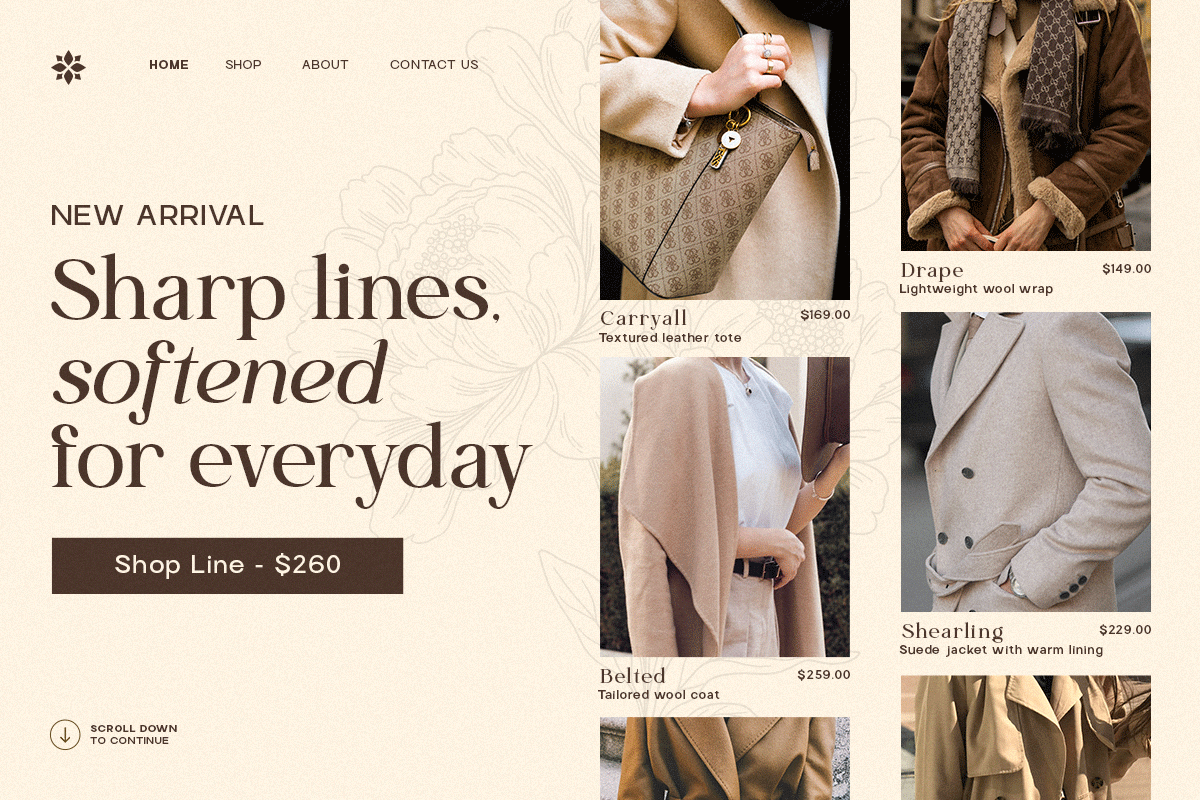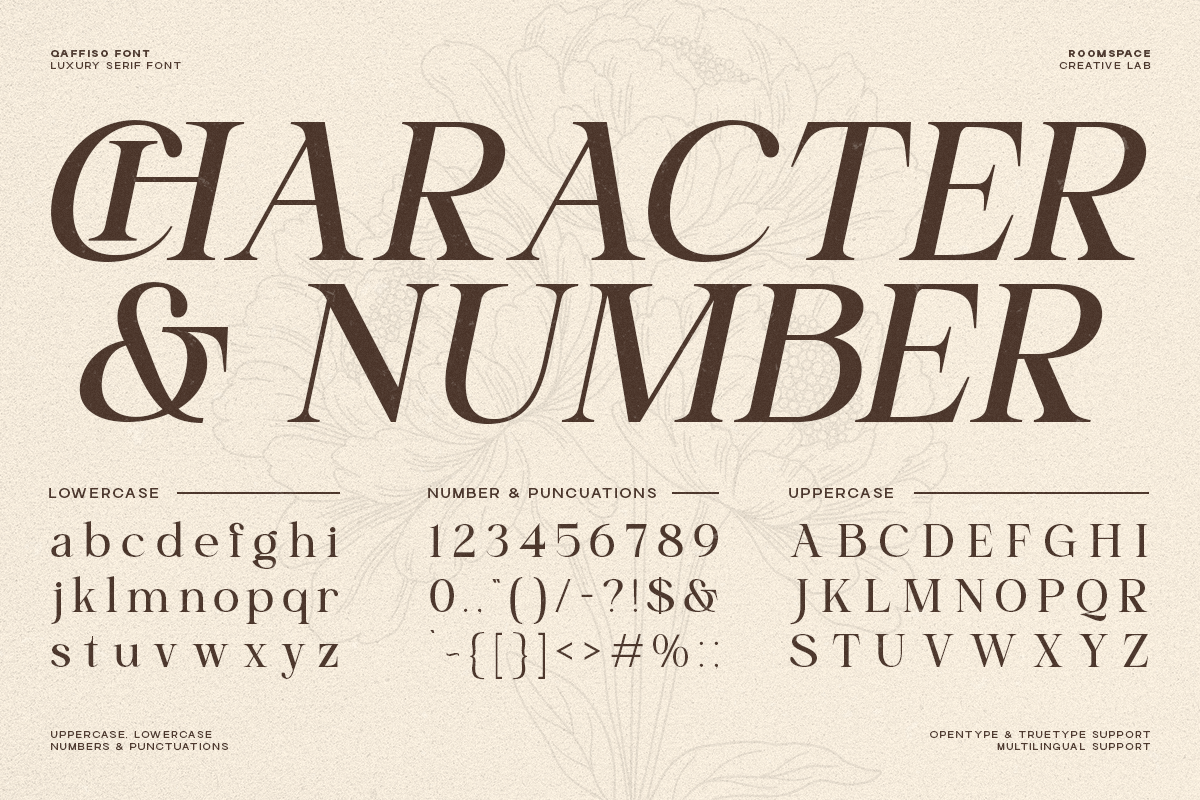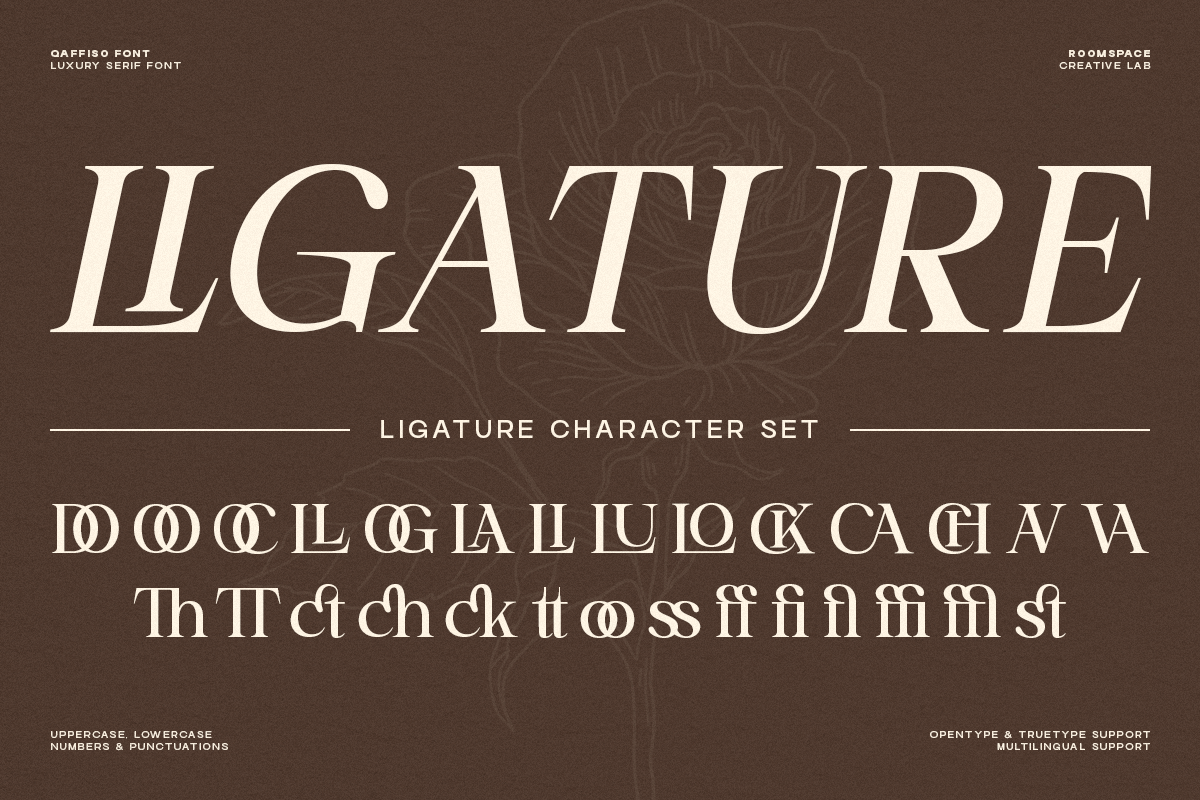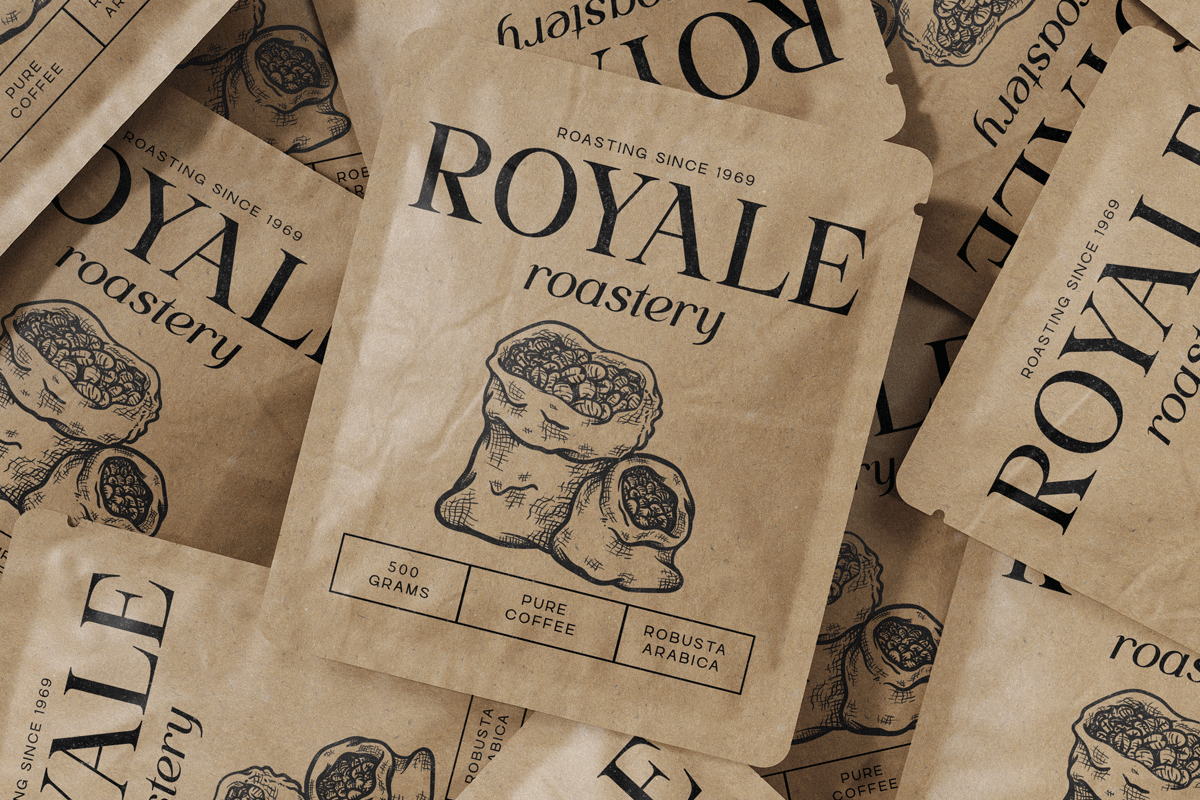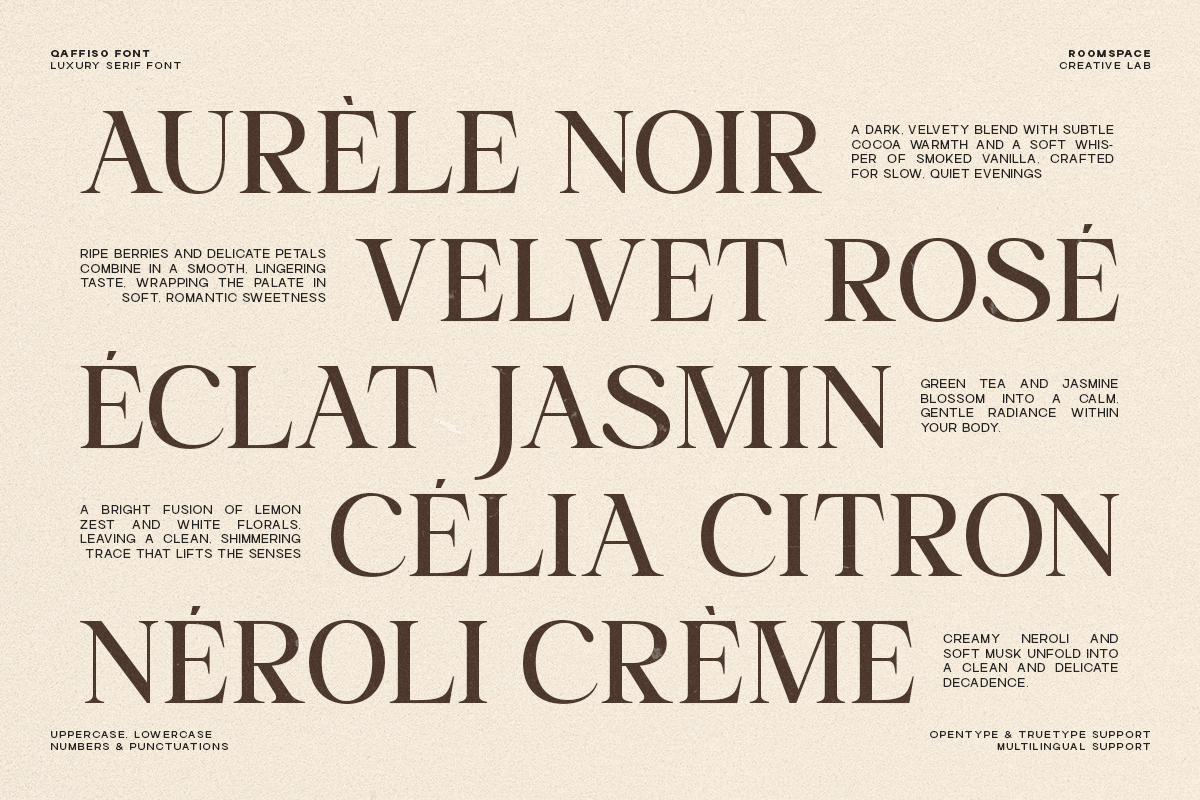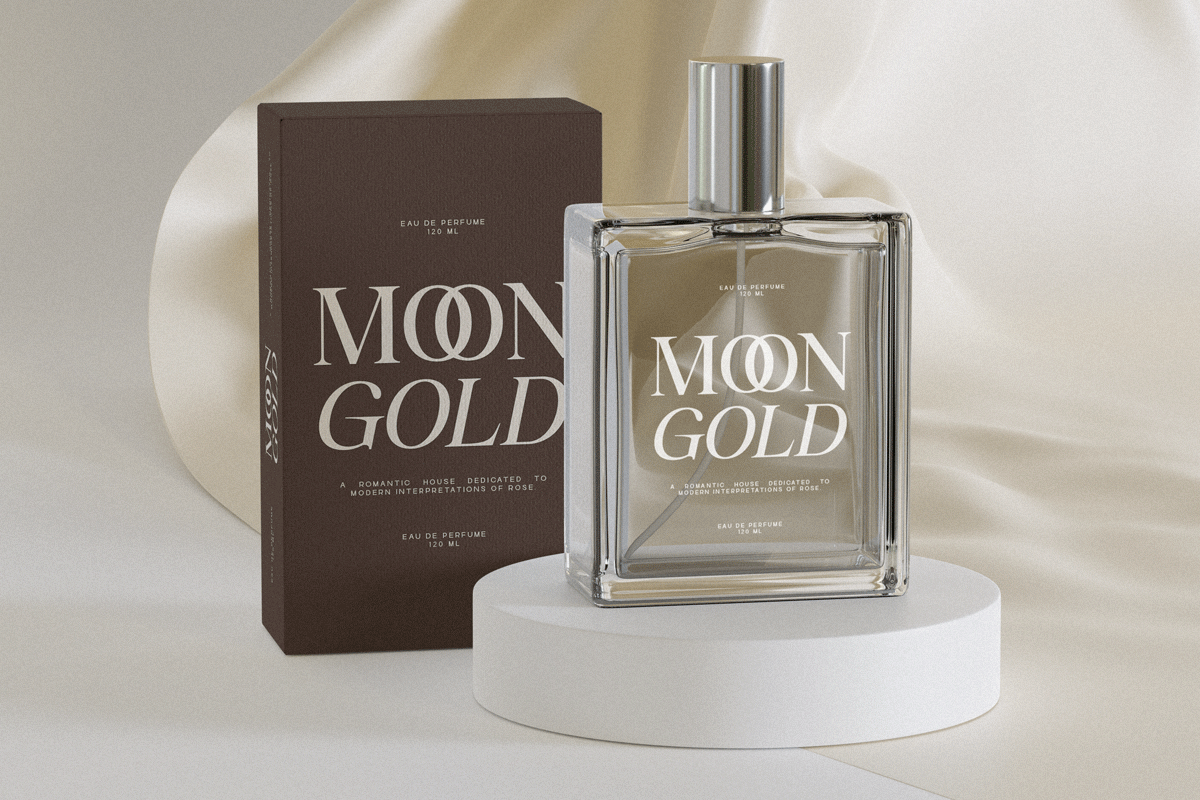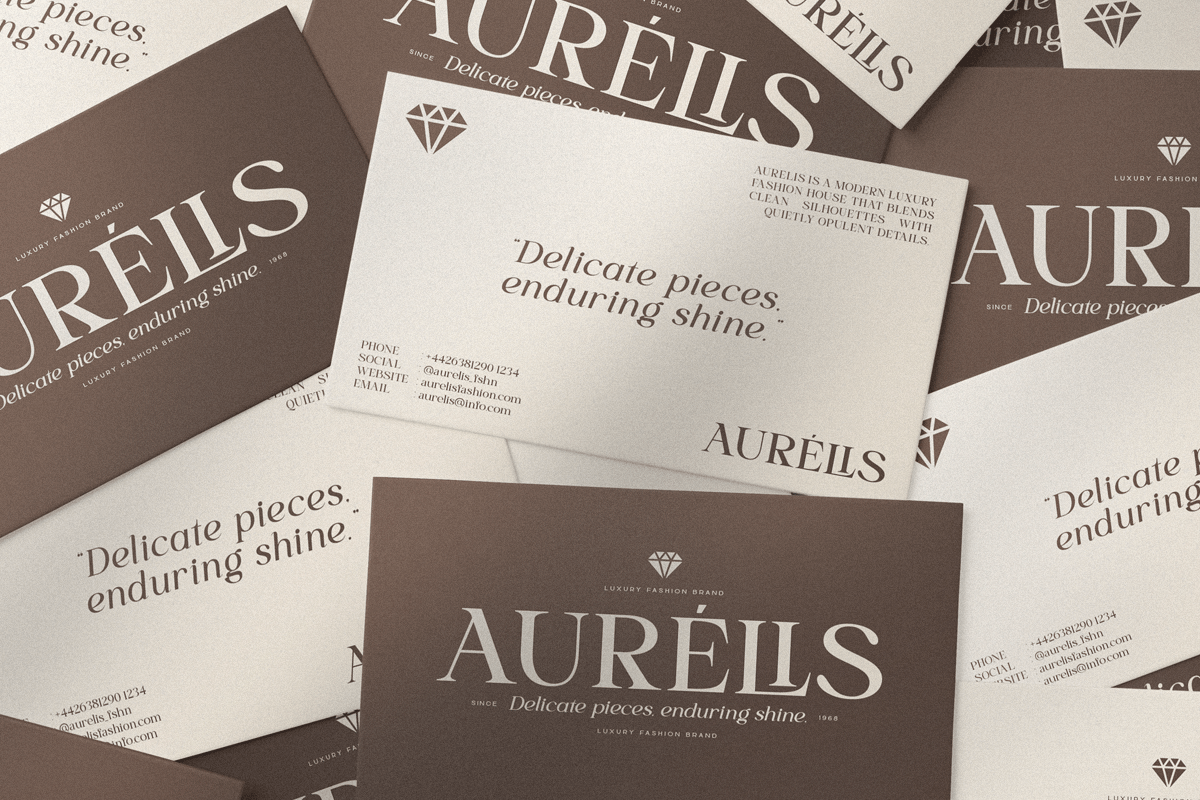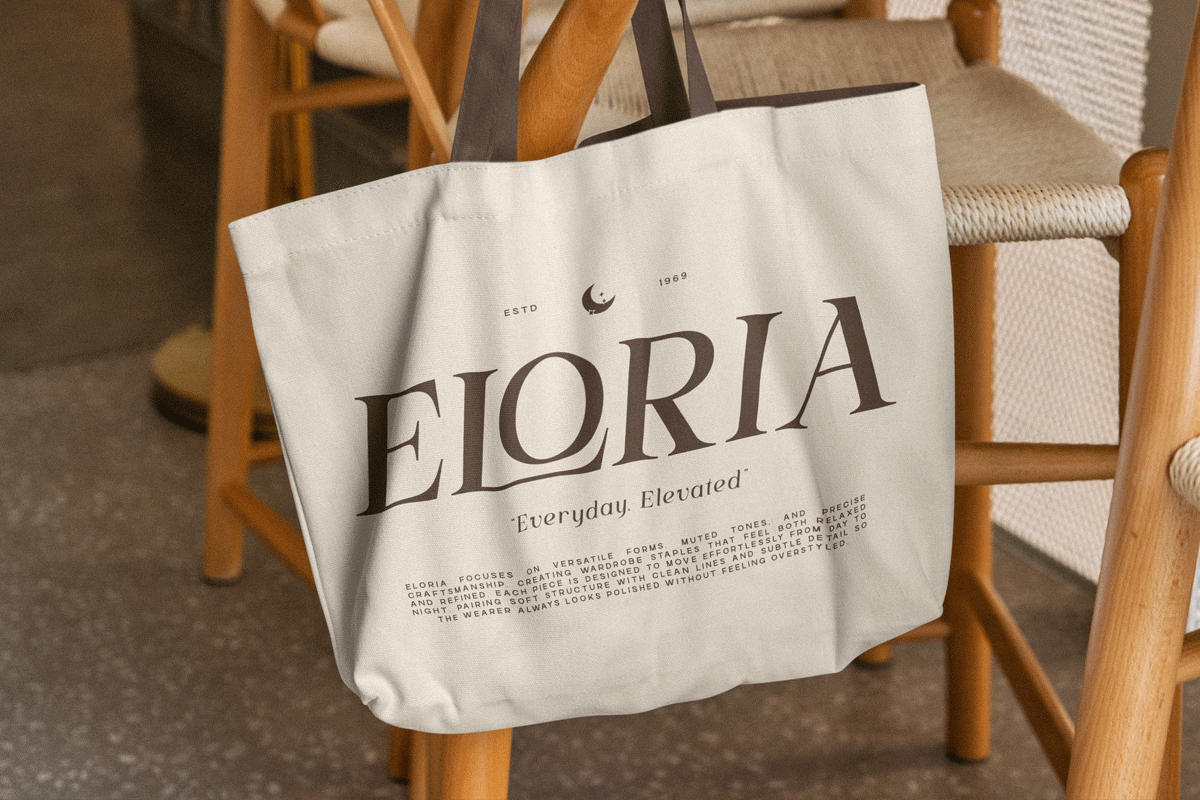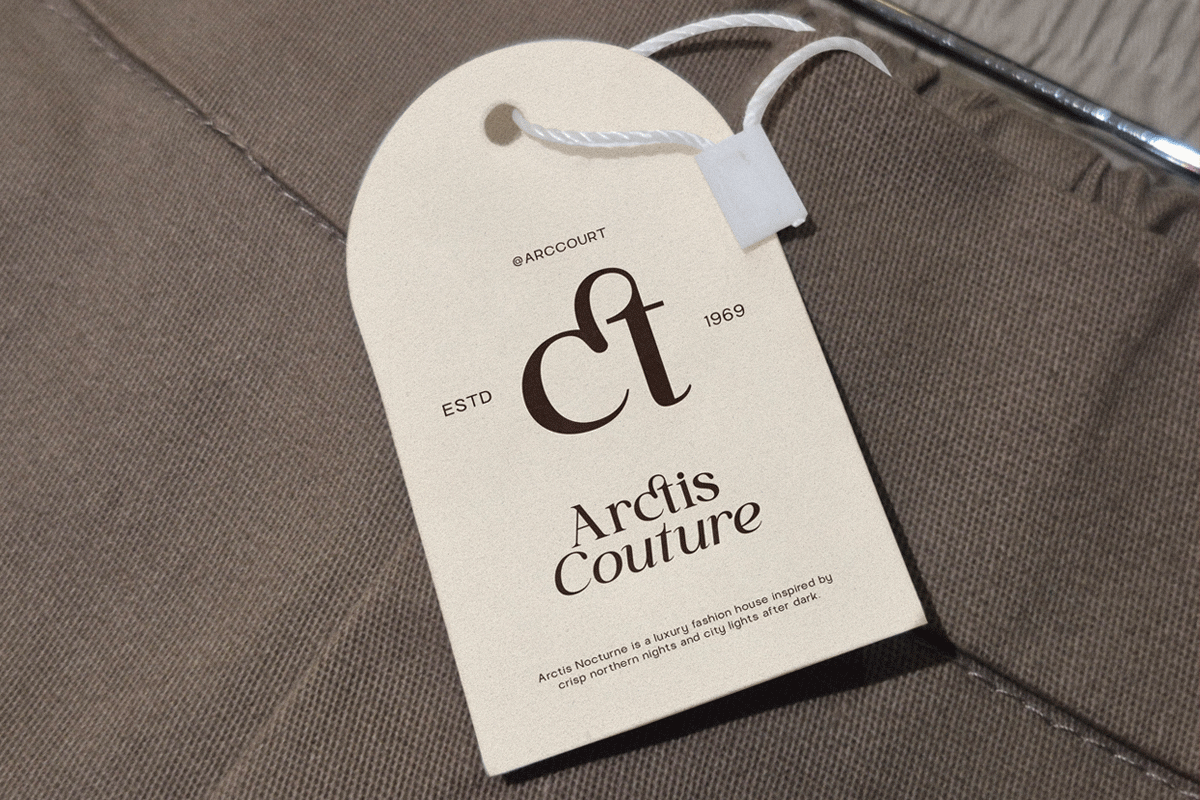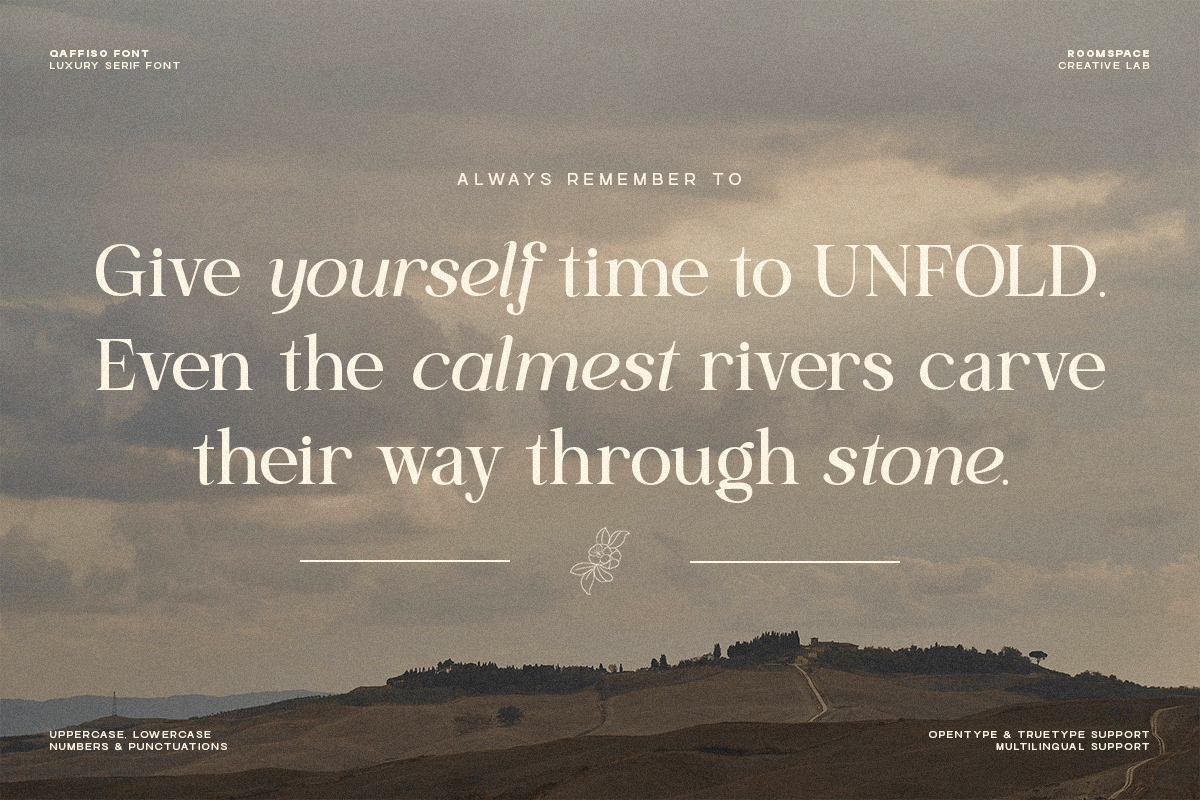
Qaffiso – Luxury & Elegant Modern
Qaffiso is a luxury serif font with graceful curves, refined contrast, and modern elegance. Its tone feels sophisticated, premium, artistic, and timeless perfect for upscale branding, editorial layouts, boutique packaging, wedding stationery, and luxury lifestyle campaigns. Qaffiso blends high-end serif tradition with contemporary smooth forms, giving every design a polished, graceful, and elevated visual presence. Crafted with precision, Qaffiso brings a sense of sophistication and premium quality to every layout. Perfect for designers seeking an elegant serif with both classical beauty and modern delicacy.
- Luxury serif design
- Refined curves & modern proportions
- High-quality kerning
- Smooth contrast & elegant shapes
Perfect For : Branding, editorial design, packaging, fashion campaigns, wedding invitations, logos, and upscale identity systems.